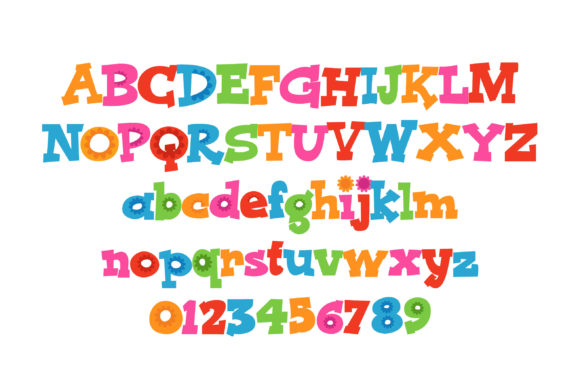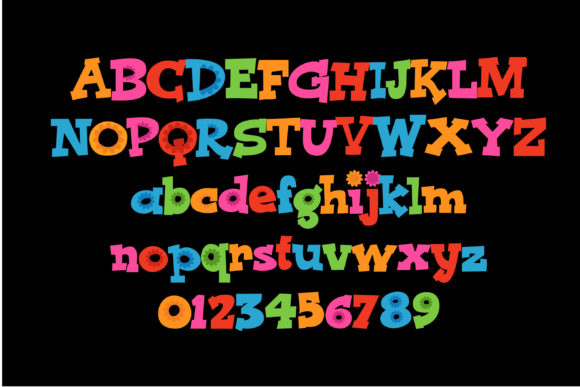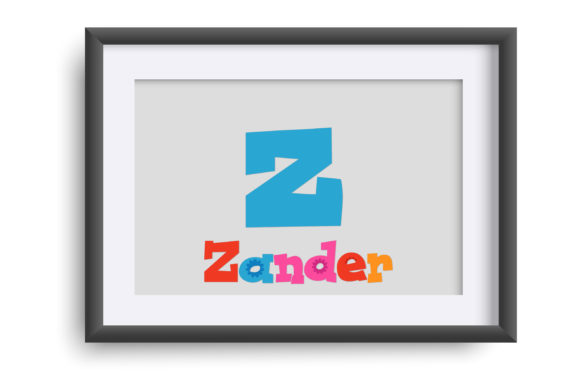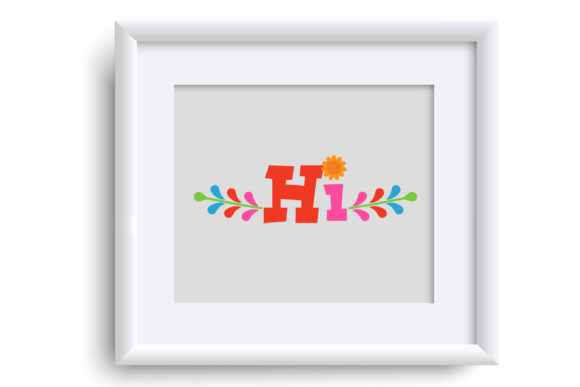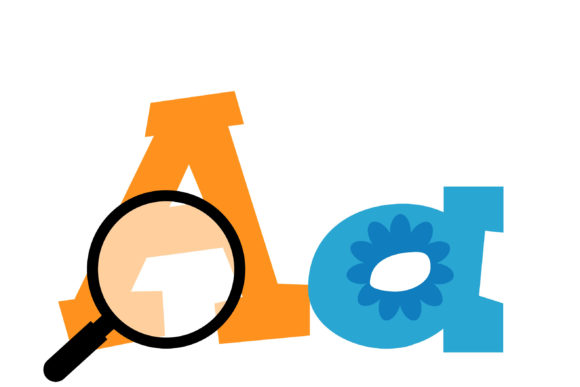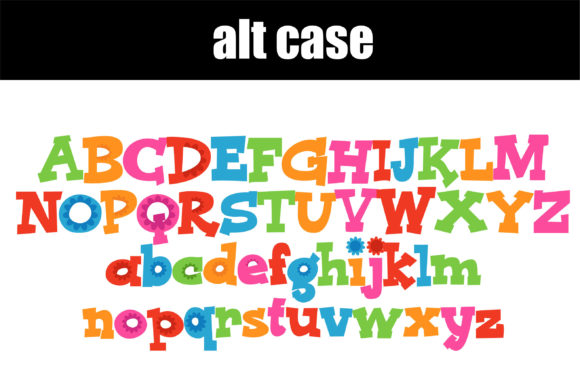
Floro Font
About Floro Font
The Floro font is a vibrant and colorful typeface that features a bright color palette and charming blossoms scattered throughout the letterforms. With its lively design, this font is perfect for adding a touch of whimsy and floral elegance to your creative projects.
In addition to the main letterforms, the Floro font also offers a second set of upper and lower alternate characters. You can access these alternate characters through your system’s character map. This feature allows you to further customize your text and create unique compositions, adding versatility and creative possibilities to your designs.
Embrace the vibrant charm of the Floro font and let its colorful lettering and charming blossoms inspire your creative projects. Whether you’re designing invitations, posters, packaging, or any other visual content, this font will bring a delightful and floral touch to your work. Explore the various alternate characters and have fun experimenting with the bright color palette to create captivating and eye-catching designs.